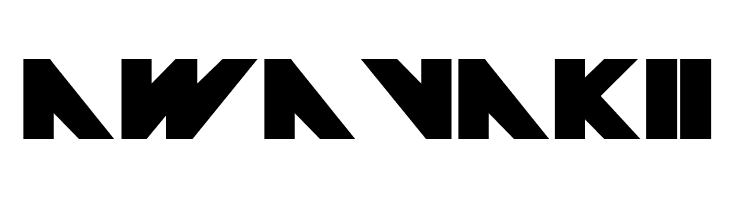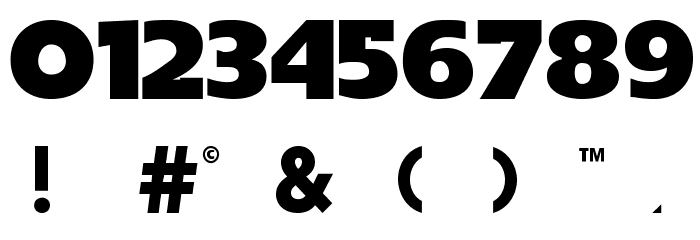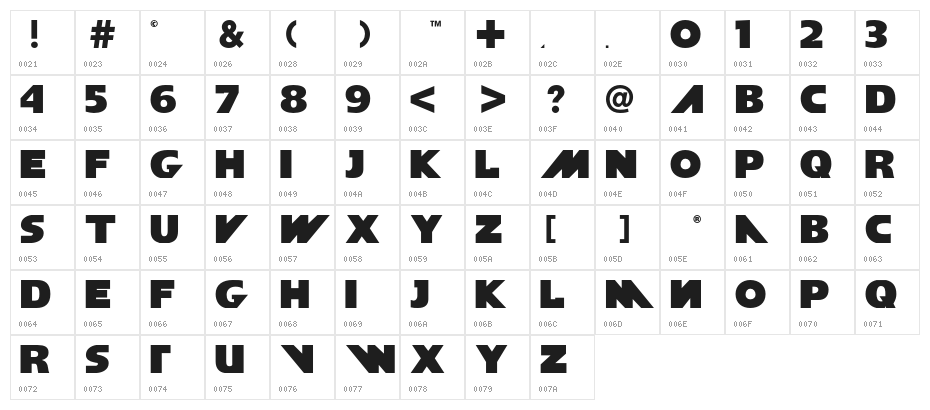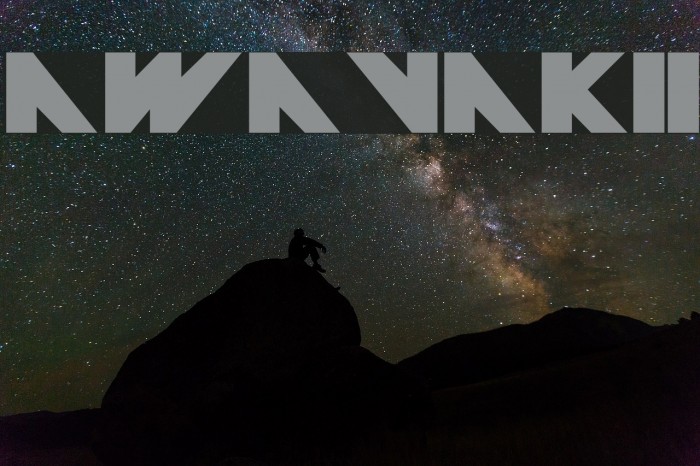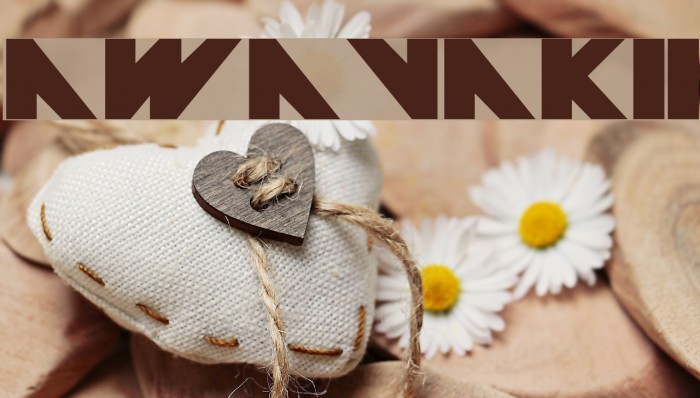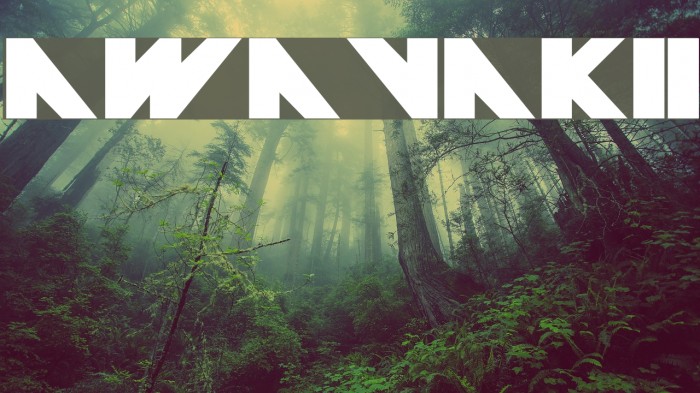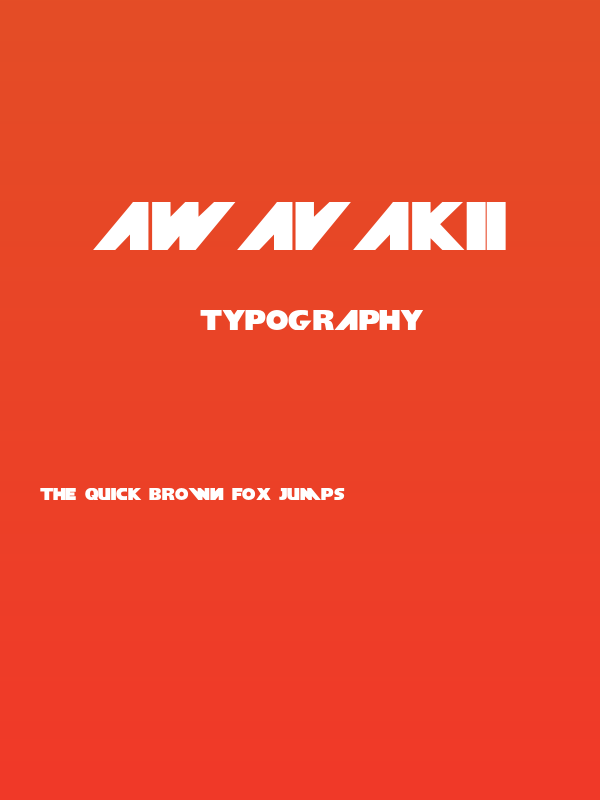
aWavakii Font
aWavakii Description
This font features a bold, geometric design with sharp angles and a futuristic aesthetic. The uppercase letters are particularly striking, with a strong emphasis on diagonal lines and a sense of movement. The numbers and special characters maintain this bold style, providing a cohesive look across all characters. The font's unique style makes it ideal for projects that require a modern and dynamic appearance.
| Proposed Projects | Ideal for branding, posters, video game graphics, and sci-fi themed projects. |